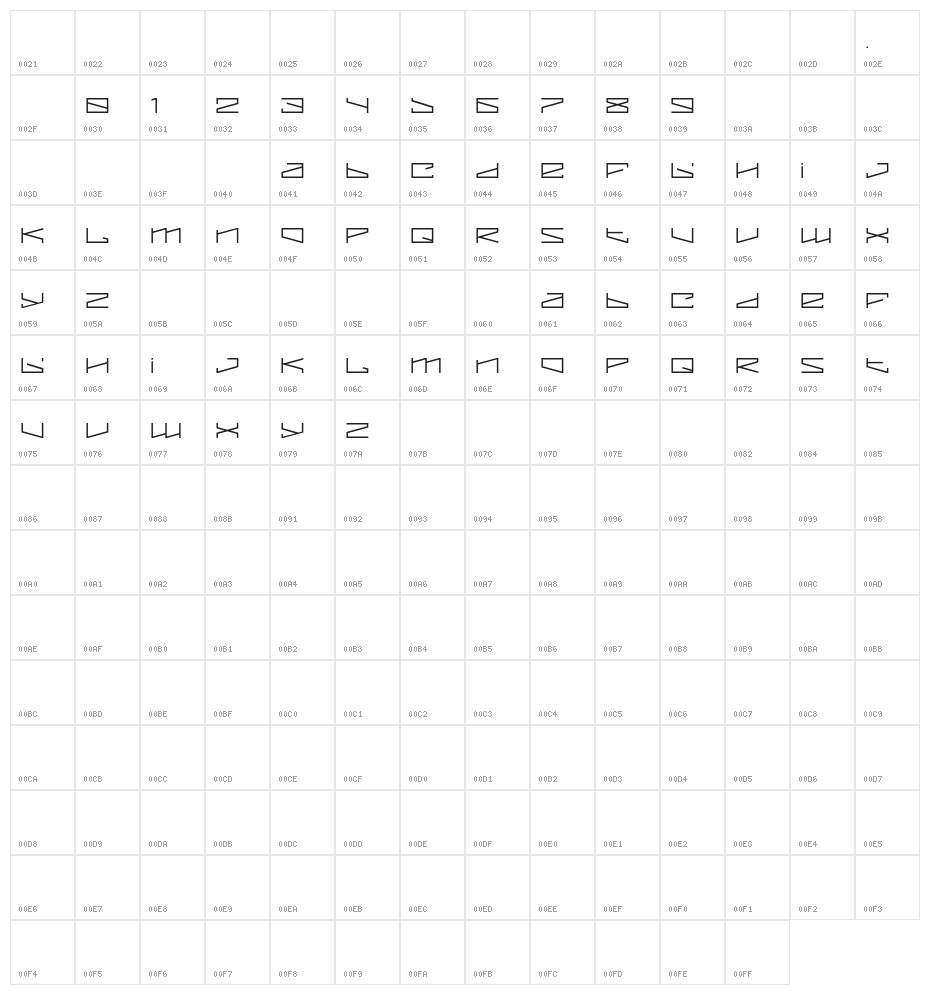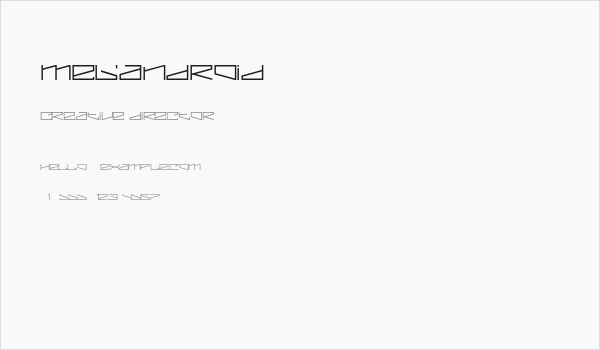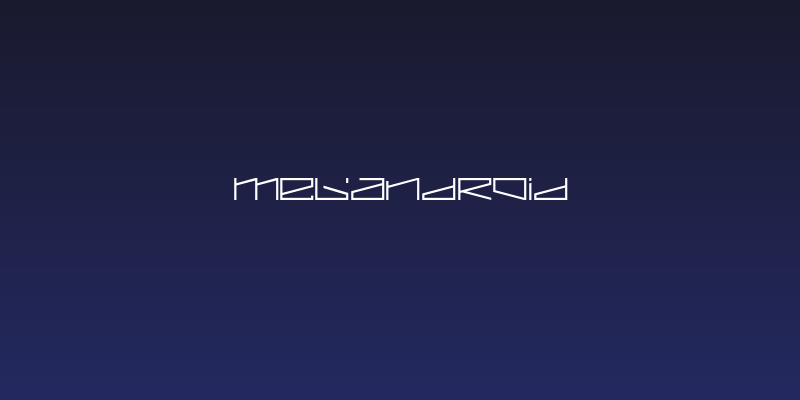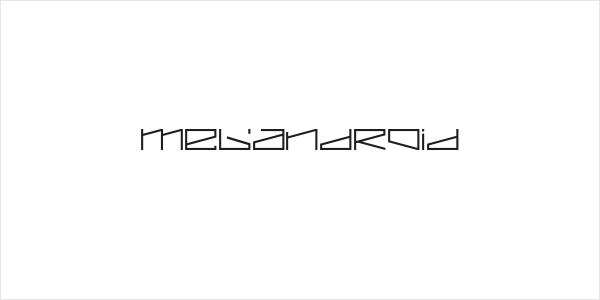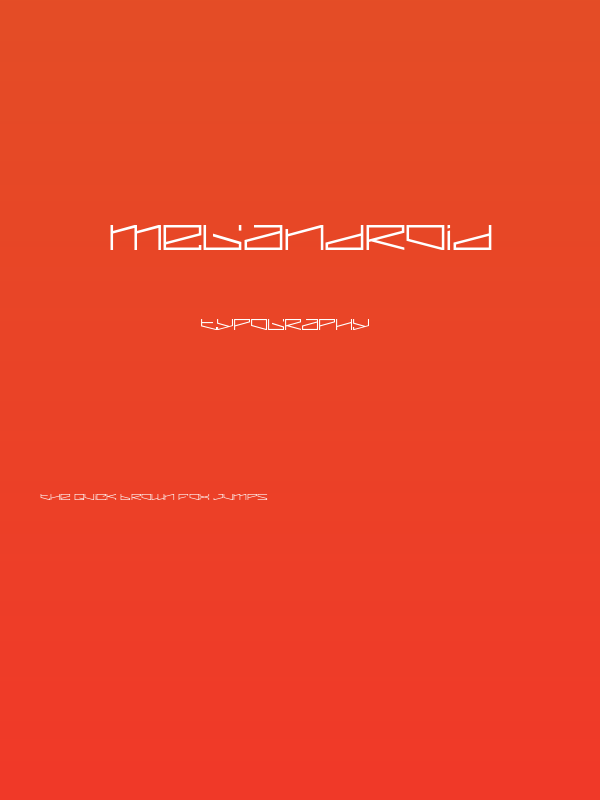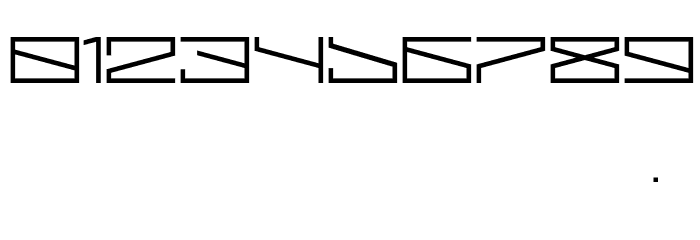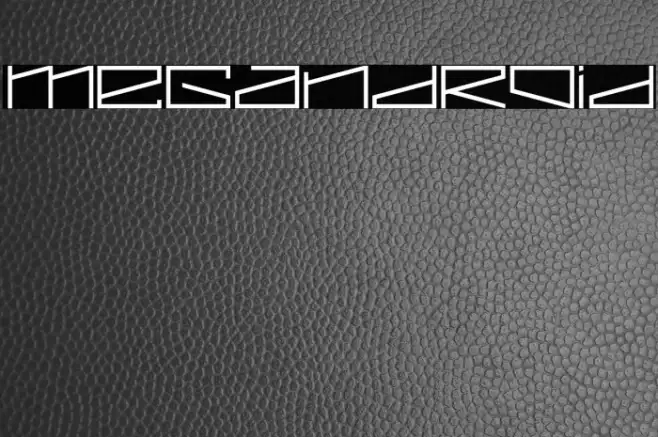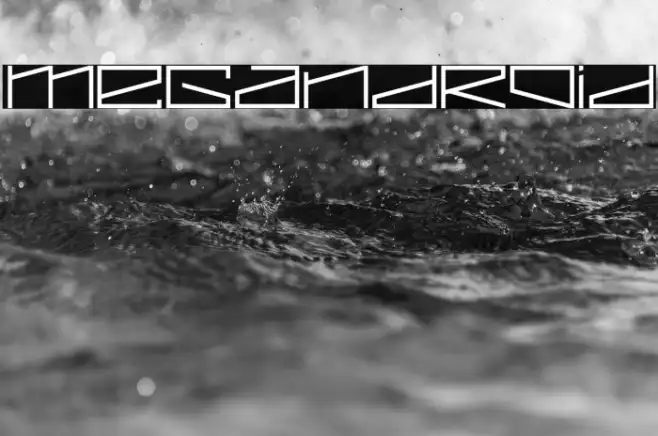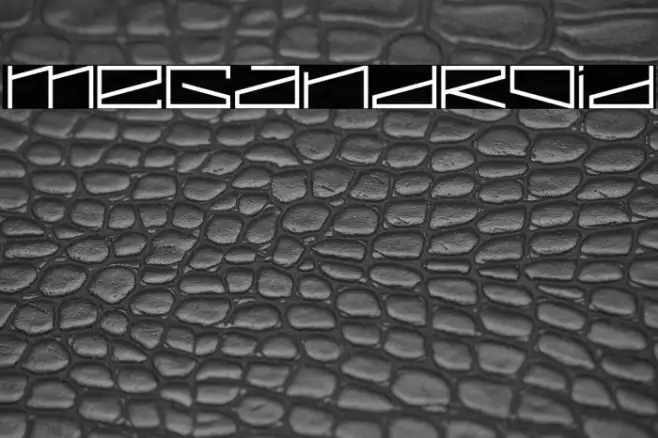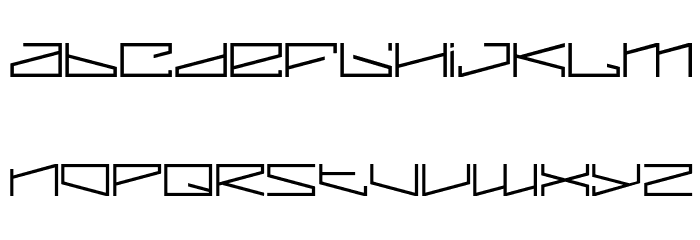
MEGANDROID Font
MEGANDROID Description
This font features a futuristic and geometric design, characterized by sharp angles and a distinct, linear structure. Each character is crafted with precision, creating a sense of modernity and technological advancement. The uppercase and lowercase letters maintain a consistent style, with a focus on angular lines and minimal curves. The numerals follow the same design principles, ensuring uniformity across all characters. The special characters are integrated seamlessly, enhancing the font's cohesive appearance. This font is ideal for projects that require a modern and edgy aesthetic, such as technology branding, sci-fi themed designs, or innovative product packaging.
| Use Case | Logos, Headlines |
| Proposed Projects | Ideal for technology branding, sci-fi themed designs, and innovative product packaging. |